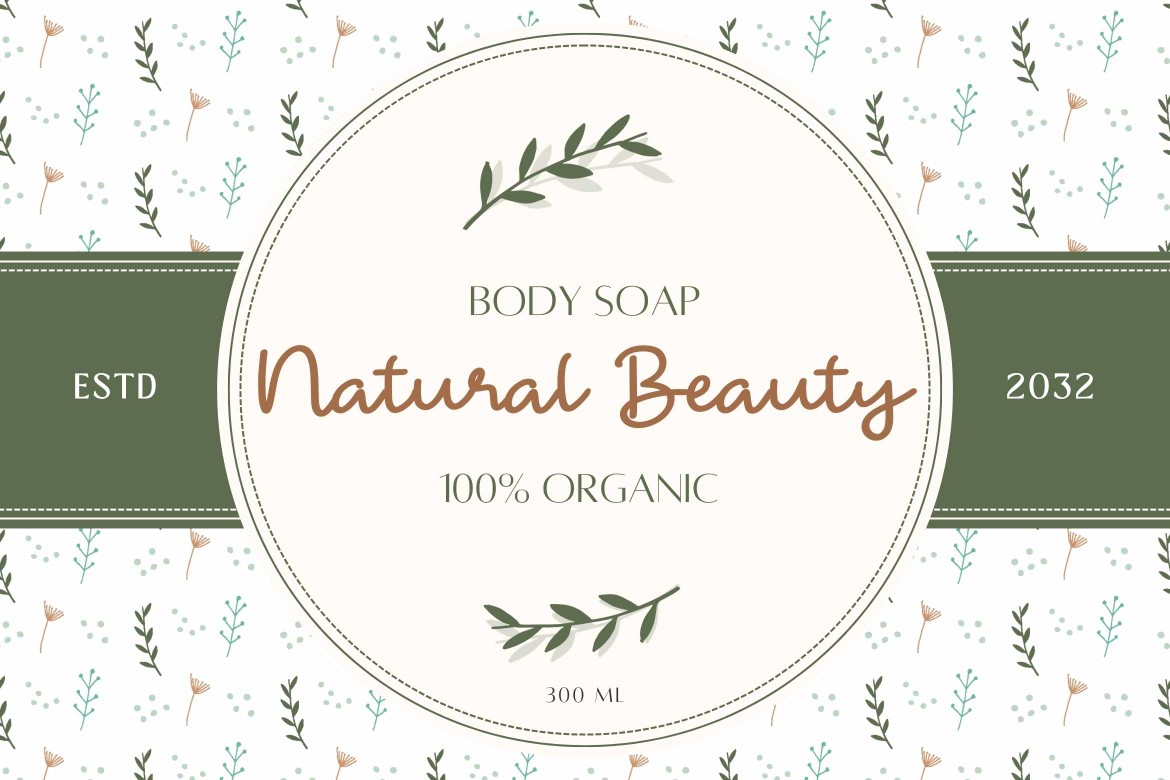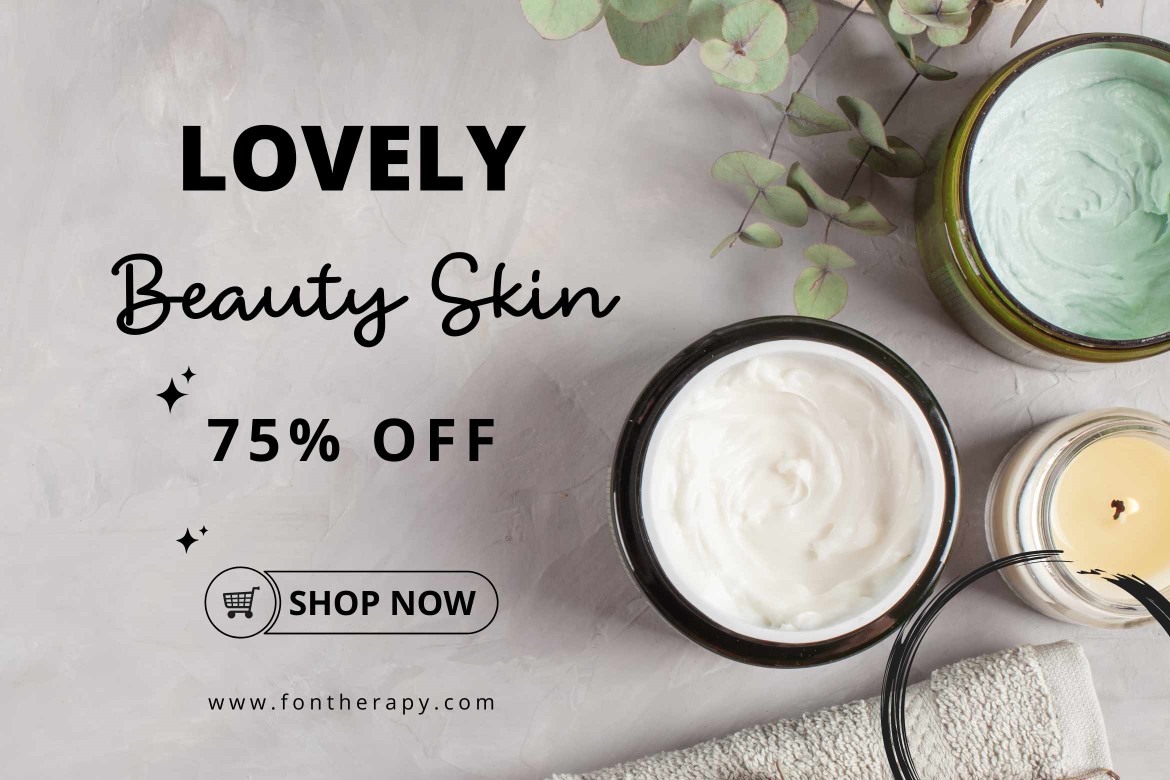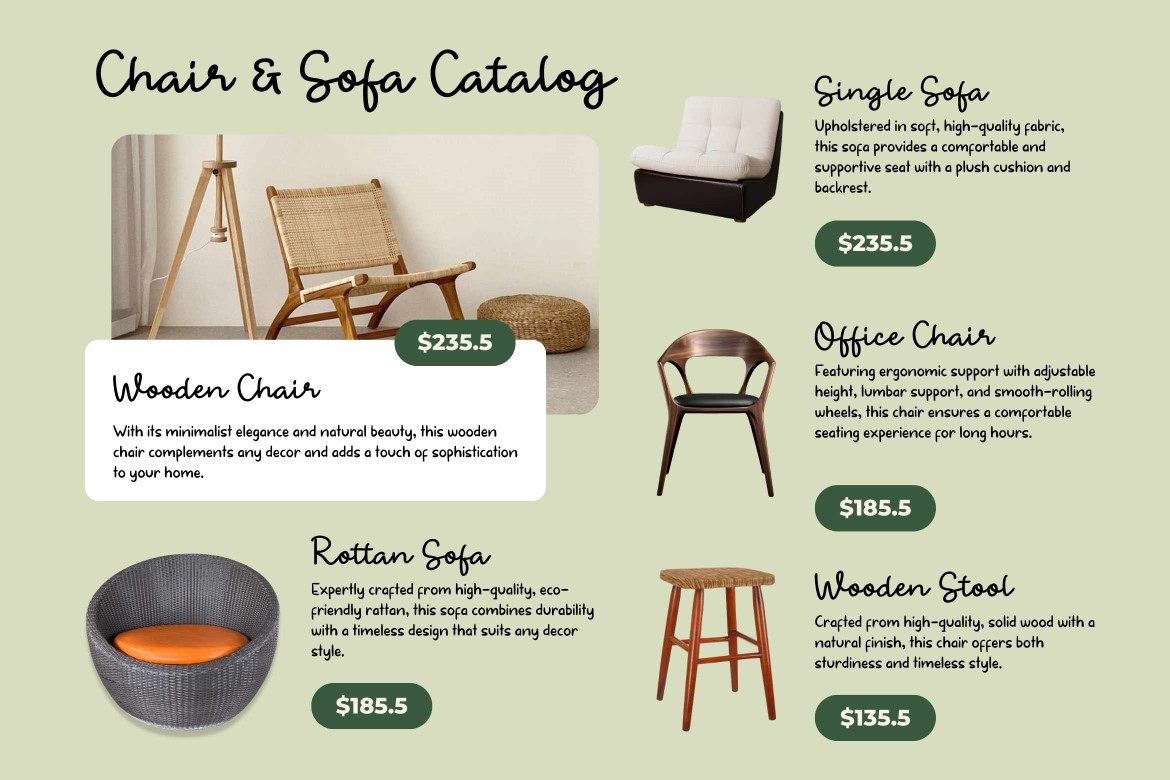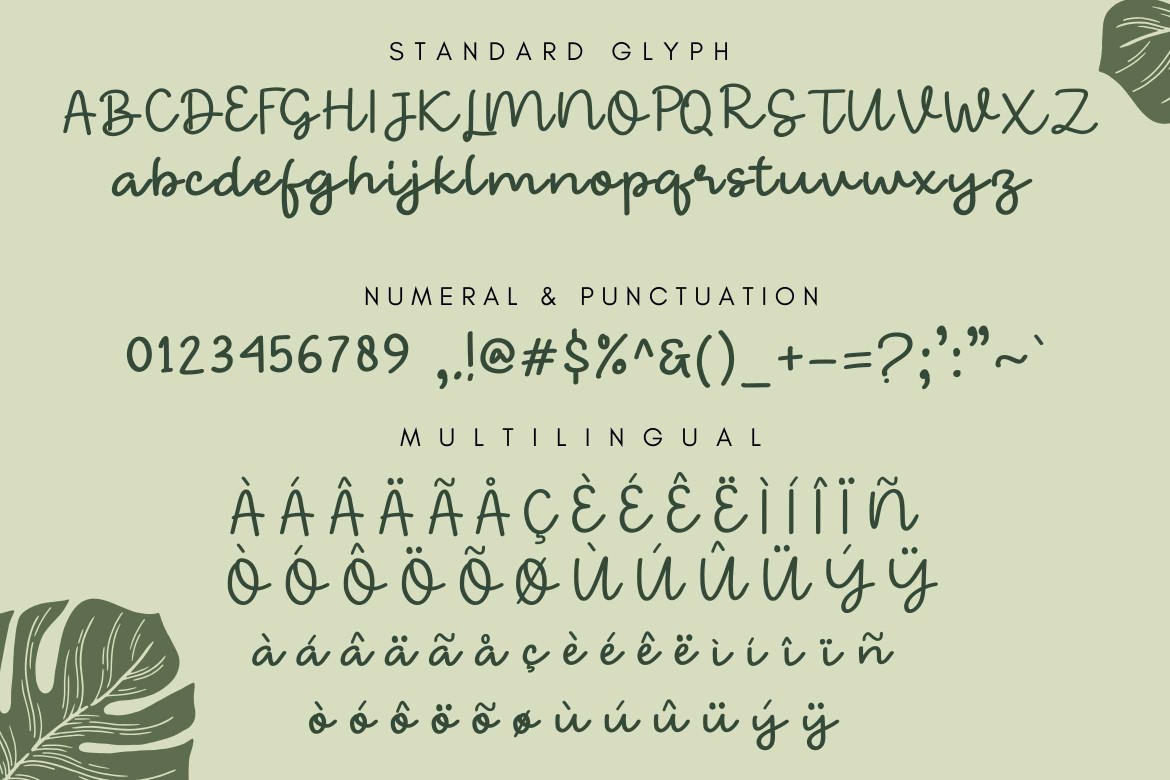
Daily Beauty
Daily Beauty is a modern script font with a soft and elegant touch, perfect for adding a feminine and graceful aesthetic to your designs. Its smooth curves and flowing strokes make it ideal for beauty-related projects, including branding, logos, and packaging for skincare and cosmetics.
This font also works wonderfully for inspirational girl quotes, wedding invitations, and social media posts, offering a delicate and sophisticated vibe. Whether you're designing for fashion, lifestyle, or personal projects, Daily Beauty delivers a stylish and contemporary look that resonates with modern audiences.